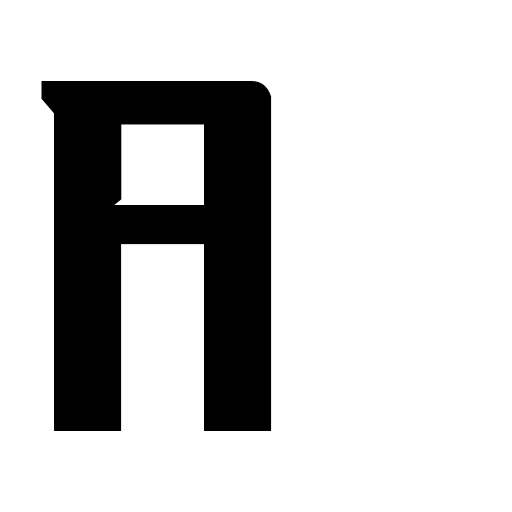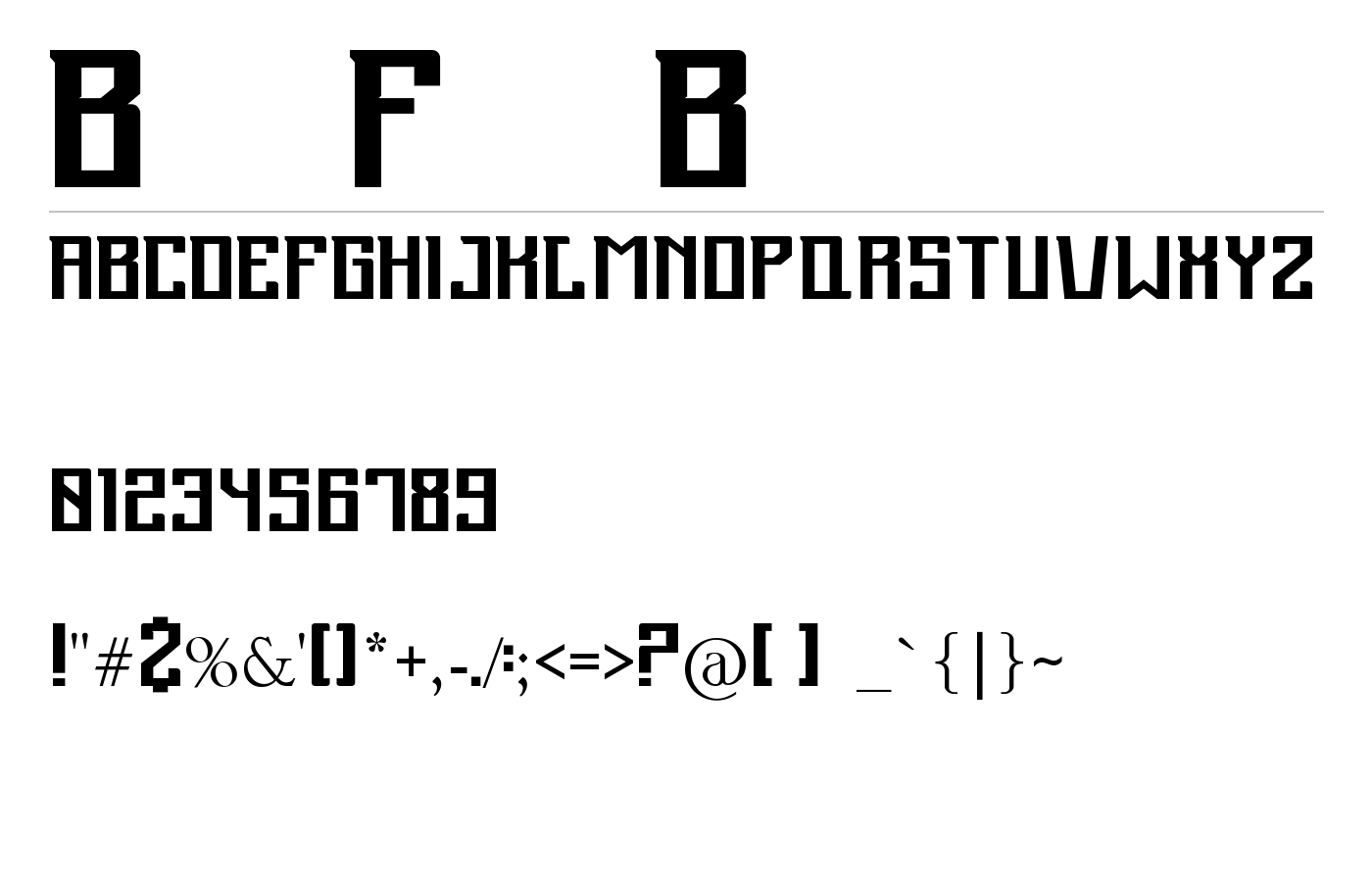
BrakFontBold is a bold, condensed sans serif typeface characterized by its strong geometric shapes and sharp edges, giving it a distinctive, modern-industrial feel. Its all-caps design with uniform stroke weight and angular details creates a striking, high-impact look, ideal for headlines, logos, and branding that require a bold, authoritative presence. This font works best in contexts where a futuristic or tech-inspired style is desired, making designs stand out with clarity and confidence.
BrakFontBold Font